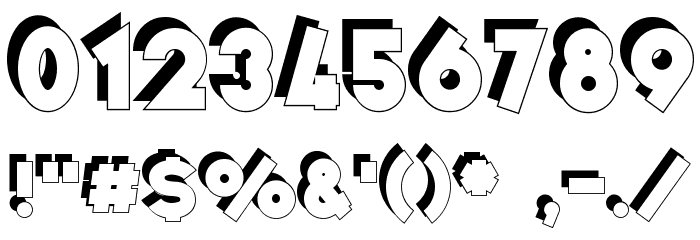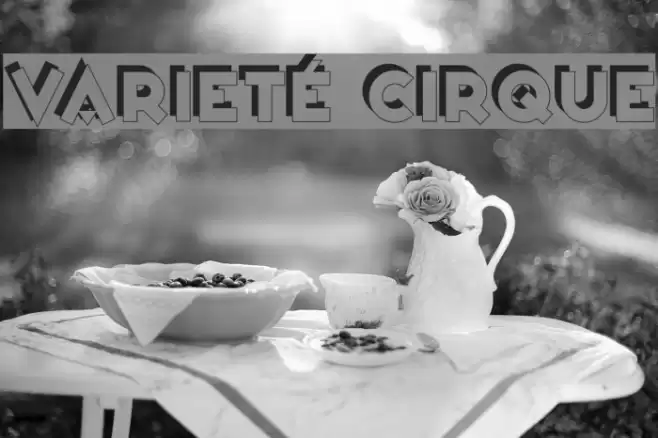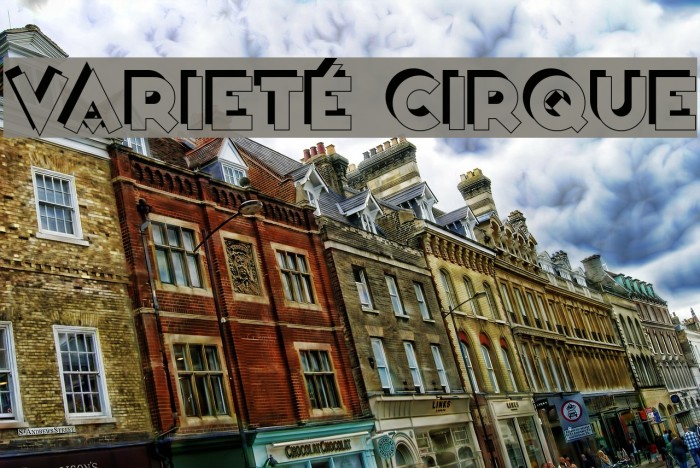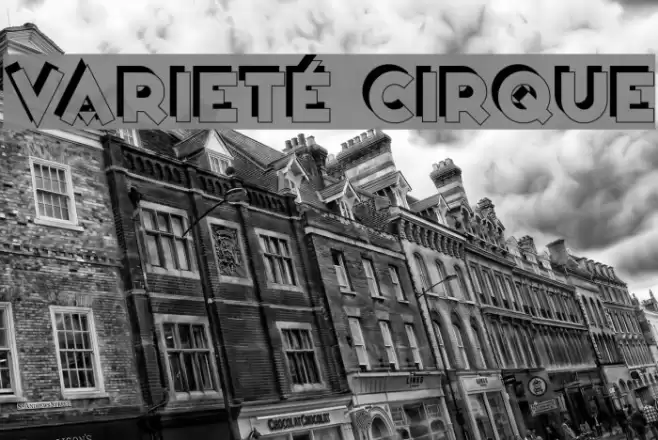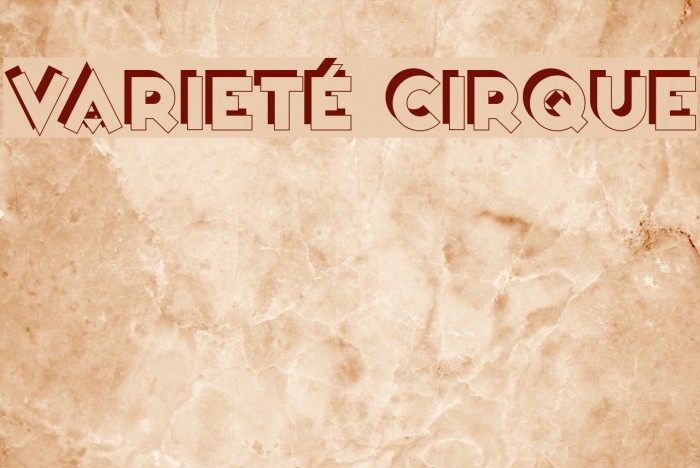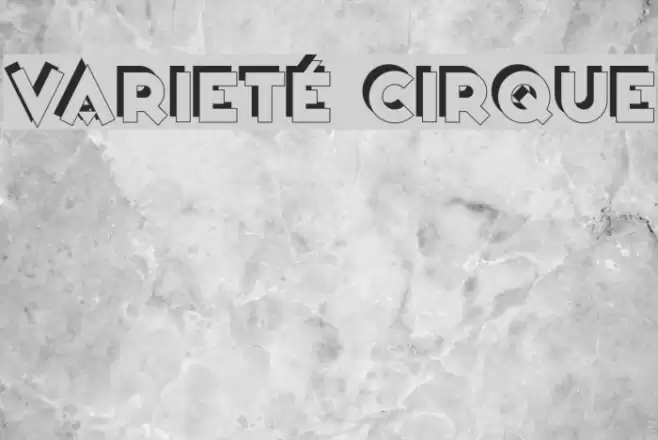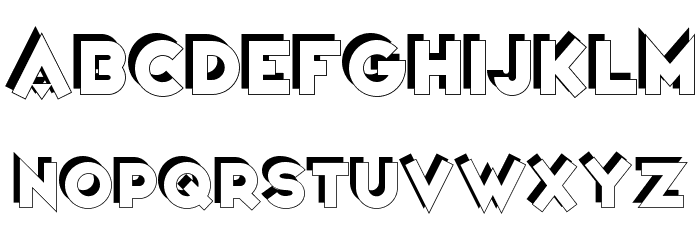
Varieté Cirque Font
Varieté Cirque Description
This font features a bold, decorative style with a playful and dynamic 3D effect. The characters are outlined with a thick black shadow, creating a sense of depth and movement. The geometric shapes and sharp angles give it a modern and eye-catching appearance. The uppercase letters are particularly striking, with a strong presence that demands attention. The numbers and special characters maintain the same bold and playful aesthetic, making the font versatile for various creative applications.
| Proposed Projects | Ideal for circus-themed posters, playful branding, children's book covers, and eye-catching advertisements. |